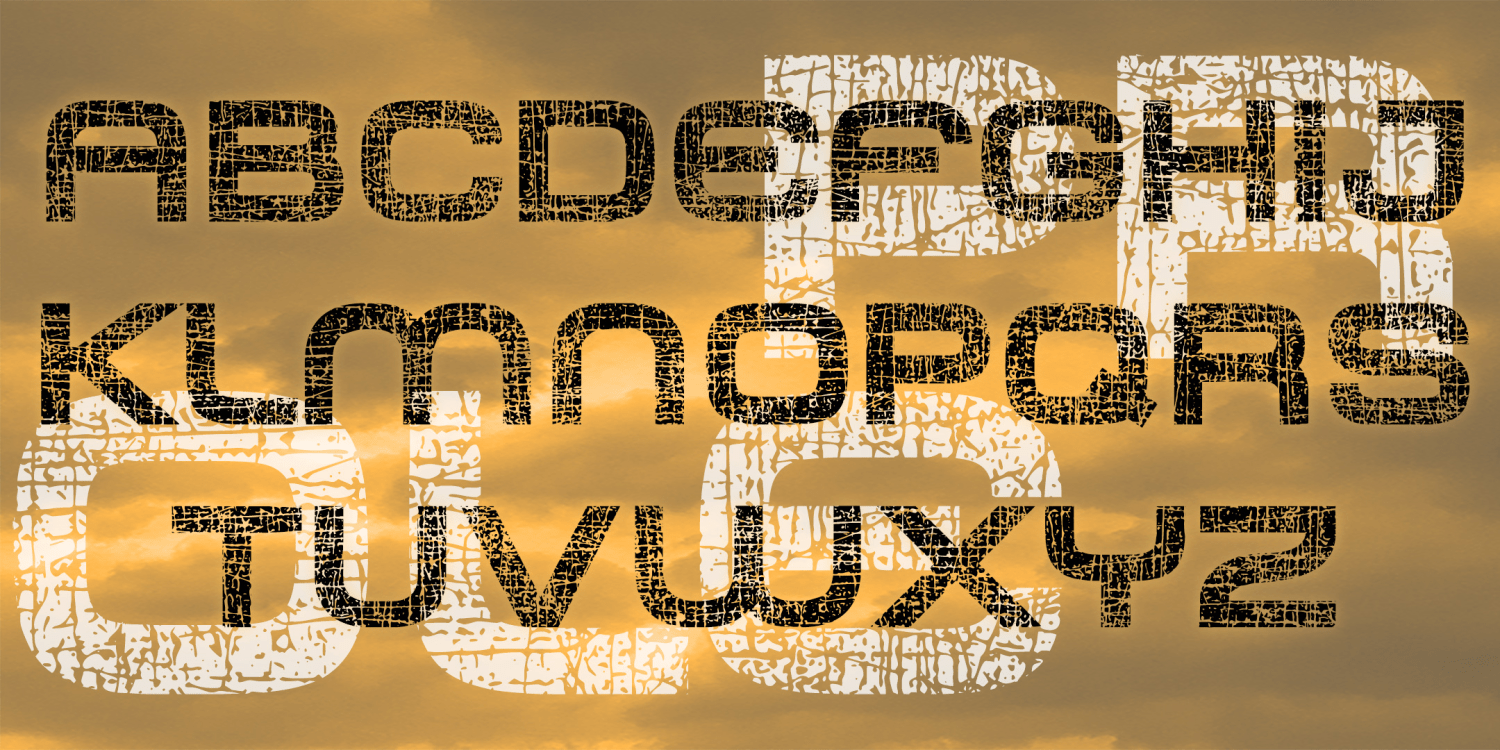
Prole
It is after the apocalypse. All that was once shiny and new is now scratched and broken. The future is now the past. This is a world of PROLE. Sleek lines and modern shapes now bear the evidence of deterioration. What will be the message?